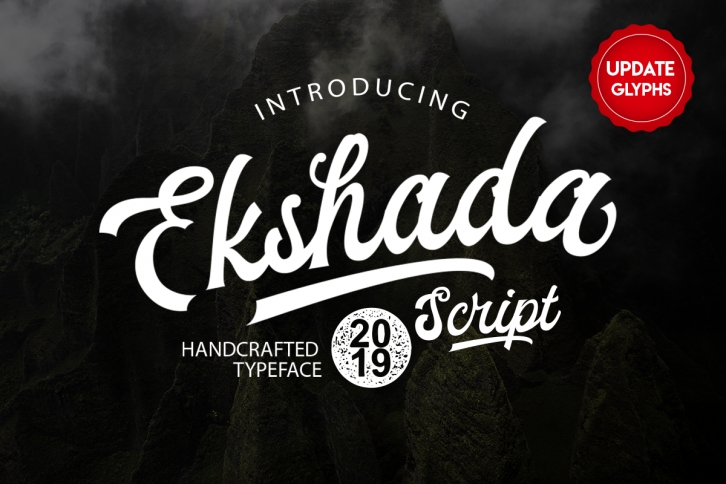
Ekshada is a trendy and unique font with an authentic style. It was designed by Sitintahitam and it's a great choice for creative people who need such a font. It was released on July 7, 2019 and the file size is 15.92 MB. Ekshada will add an organic vibe to any design idea!